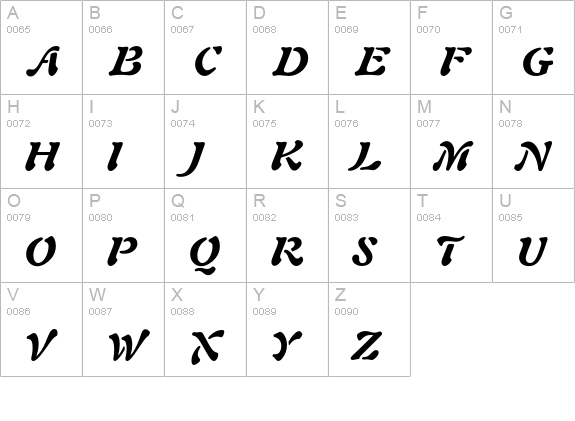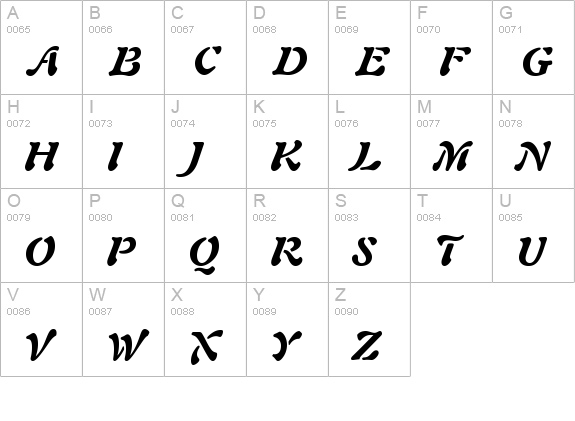
Freeform 721 Black Italic is a maximum-weight, dramatic, italic variant in the Freeform typeface family \xE2\x80\x94 well suited to maximum-impact headlines, posters, and packaging.
Introducing Freeform 721 Black Italic font – a bold and sleek typeface designed to make a statement. This unique font exudes sophistication and modernity, making it perfect for various design projects. The italic style adds a touch of elegance and flair to any text, making it stand out from the crowd. What makes Freeform 721 Black Italic font truly special is that it is available for free download at FontsMarket.com. This means that you can easily access and use this premium font without any cost, making it a valuable addition to your font collection. Whether you're working on branding, advertising, or creative projects, Freeform 721 Black Italic font is sure to elevate your designs and leave a lasting impression. Don't miss out on this opportunity to enhance your projects with this stunning font – download it for free today at FontsMarket.com!